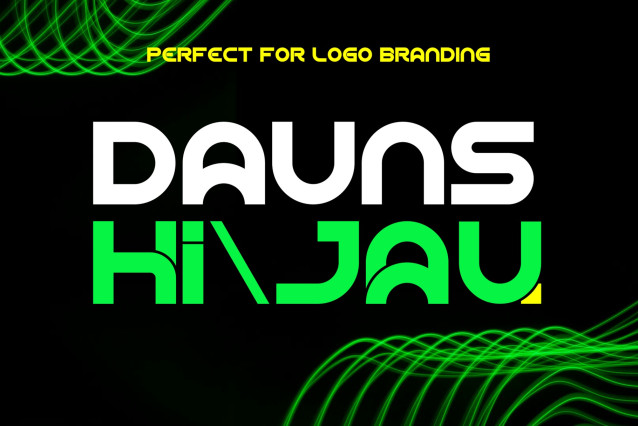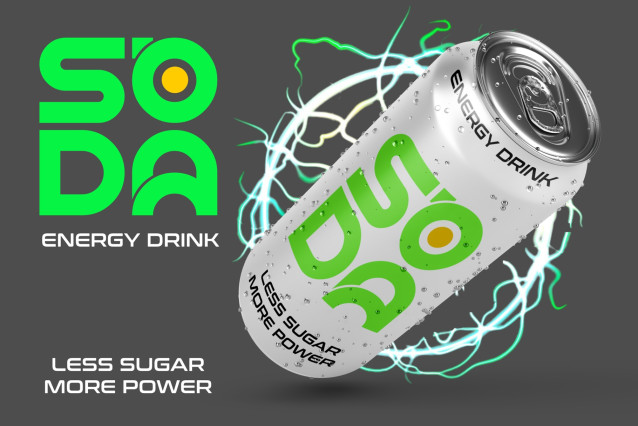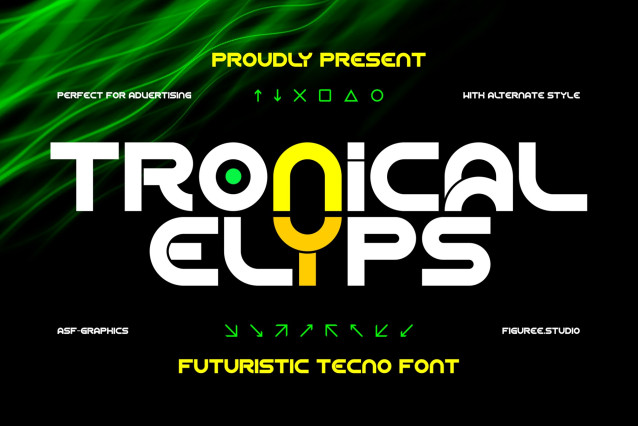
Tronical Elyps Font
Tronical Elyps Font – Futuristic Techno Font for Modern Digital Design. Typography shapes the way we experience the future of design, and nothing captures modern innovation better than a futuristic techno font. Tronical Elyps – Futuristic Techno Font is crafted with bold geometric precision, smooth curves, and futuristic edges, making it perfect for logos, posters, branding, and digital interfaces.
This futuristic techno font doesn’t just look modern—it communicates the energy of technology, speed, and progress. Whether you’re building a tech startup identity, esports visuals, sci-fi posters, or futuristic packaging, Tronical Elyps ensures your design feels advanced and ready for the future.
Futuristic Techno Font with Bold Style
Tronical Elyps sets itself apart by blending clean geometry with techno-inspired innovation. Every stroke is calculated to give your typography a sense of movement and power. This futuristic techno font is ideal for projects that need a balance of sleekness and energy.
It includes uppercase and lowercase letters, plus stylistic alternates that allow you to experiment with unique letterforms. This flexibility gives designers endless options for creating bold futuristic logos or experimental poster layouts.